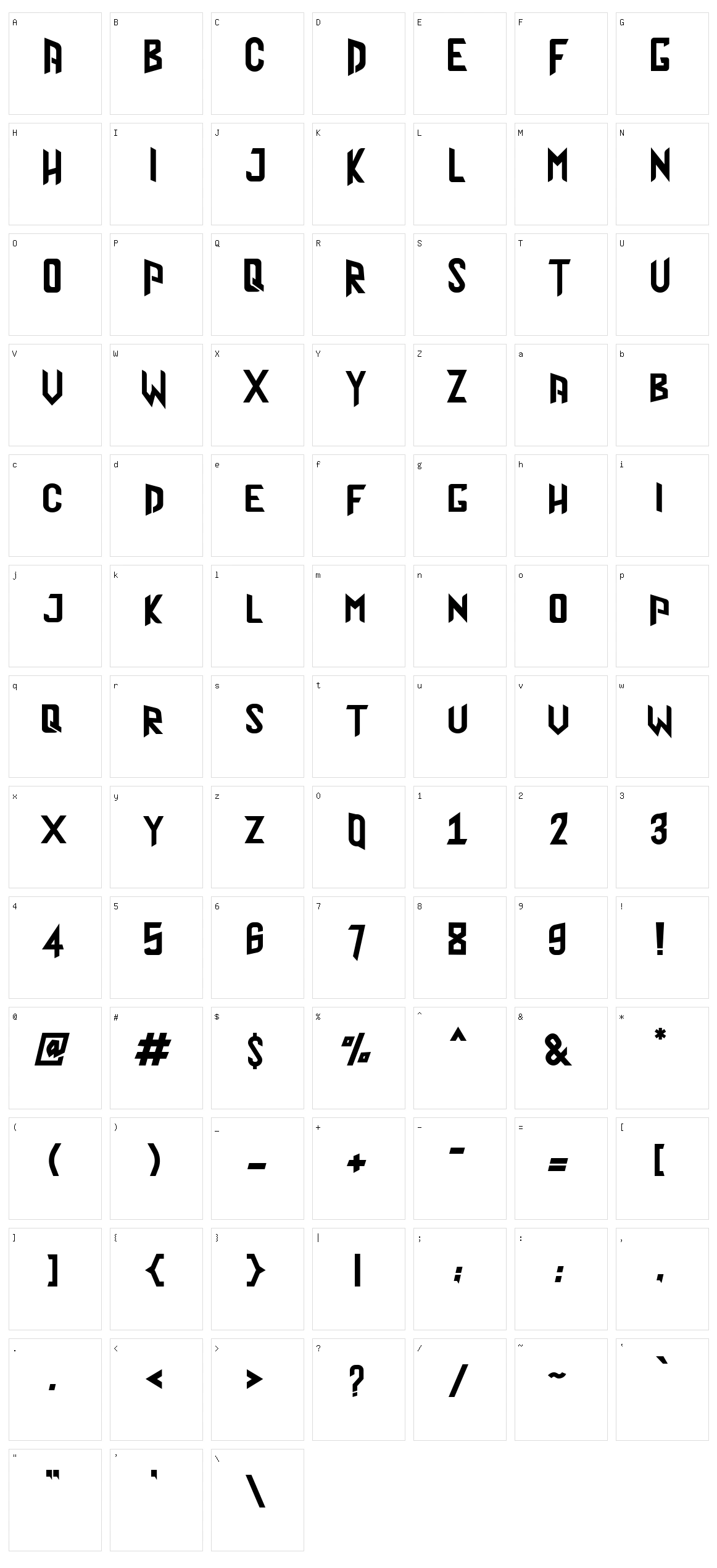
Wizard
Description: The free font Wizard is carefully designed by Graphiqa Studio, showcasing a thoughtful balance of creativity and usability and belongs to the Gothic font family. When you download the ZIP file, it contains only 13.33 KB of font files, making it lightweight and quick to download. Please review the license details below to understand permitted usage and distribution rights. If license information is not available, we recommend using this font for personal projects only or contacting the author directly for commercial usage permissions.
Wizard Character Set